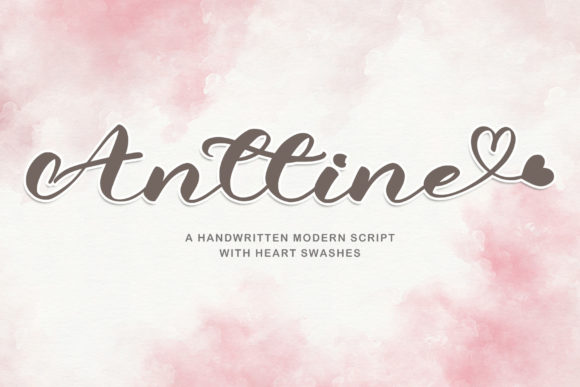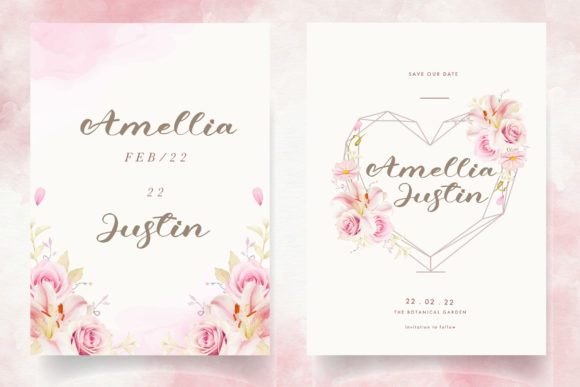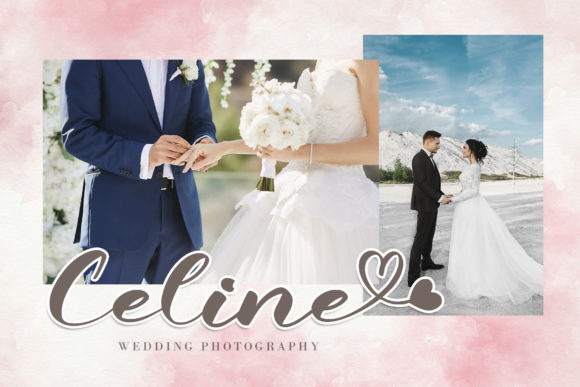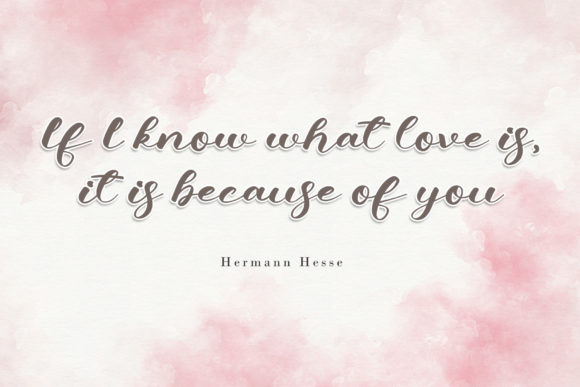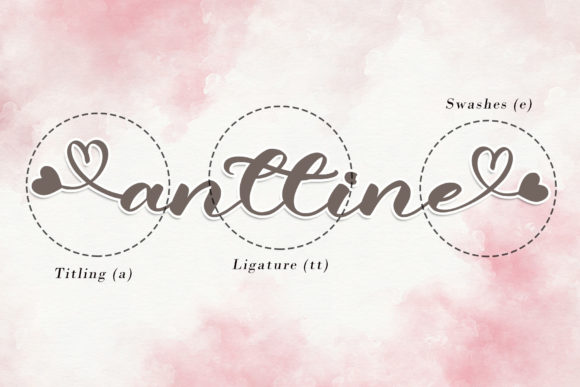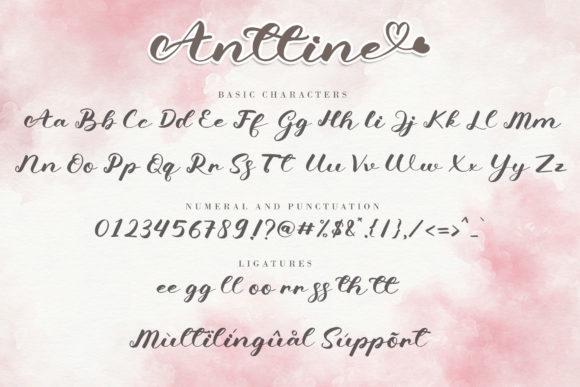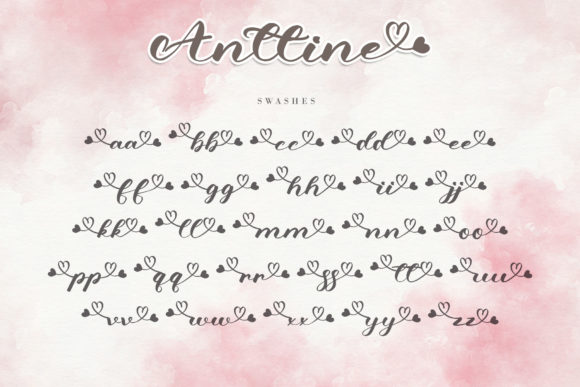
Anttine Font
About Anttine Font
Anttine is a stunning calligraphy typeface that captures the essence of romance and sweetness. With its beautifully crafted characters that dance along the baseline, this font brings a touch of elegance and luxury to any design project.
The flowing and graceful strokes of Anttine create a sense of movement and beauty, making it perfect for adding a touch of sophistication to your creations. Whether you’re designing wedding invitations, love letters, greeting cards, or any other project that requires a romantic and charming feel, Anttine will elevate your work to new heights.
One of the standout features of Anttine is its extensive set of glyphs and ligatures, which allows for a wide range of design possibilities. The PUA encoding ensures easy access to all these special characters, enabling you to create unique and eye-catching compositions effortlessly.
With Anttine, you have the freedom to explore various design applications. From branding and logos to social media graphics and packaging, this font adds a luxurious spark that instantly captures attention. Its versatility allows it to adapt to different styles and themes, making it a valuable asset for any designer.
Whether you’re creating designs for personal use or professional projects, Anttine will add a touch of elegance and charm that resonates with your audience. Its romantic and sweet nature creates a lasting impression and evokes emotions of love and beauty.
In summary, Anttine is a romantic and sweet calligraphy typeface that brings a luxury spark to any design project. With its dancing baseline and extensive set of glyphs and ligatures, it offers endless possibilities for creating stunning and captivating designs. Embrace the elegance and charm of Anttine and let it enhance your creative vision.